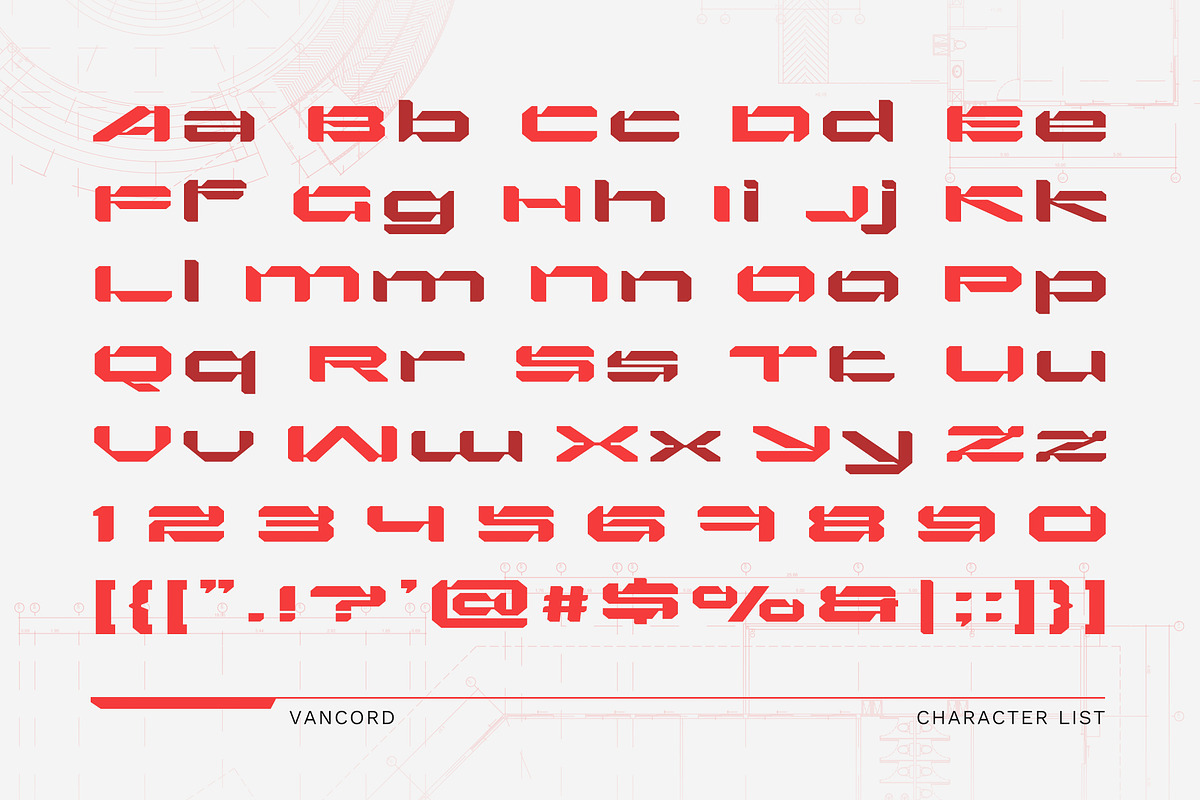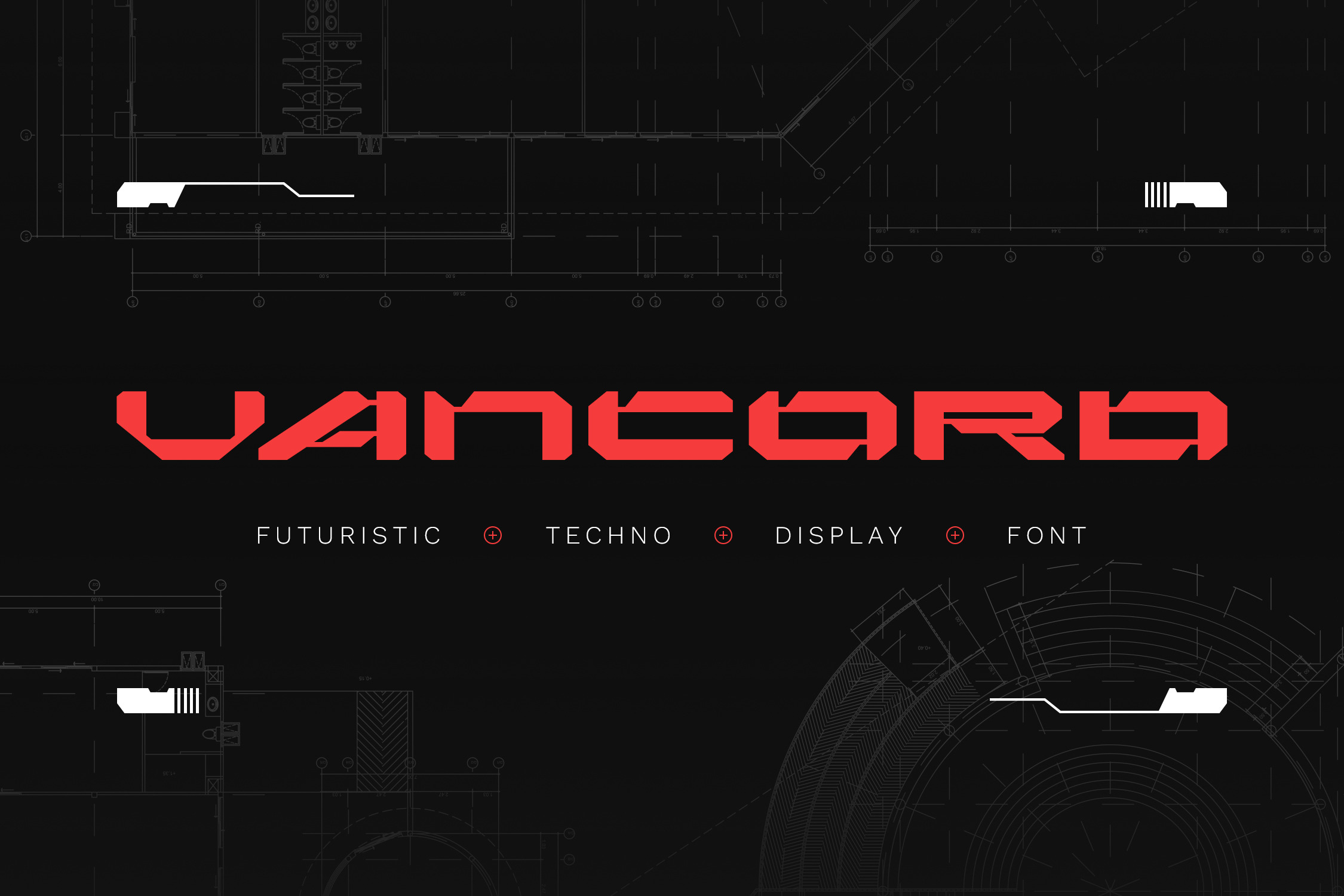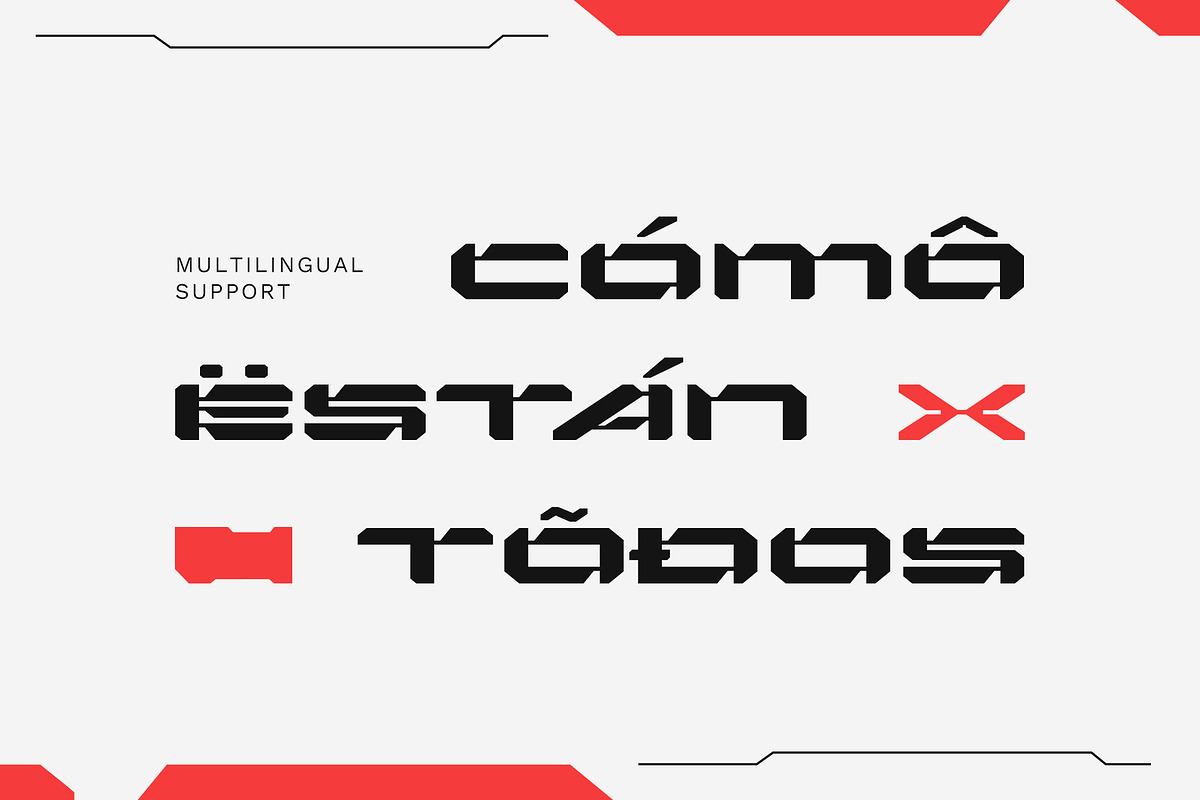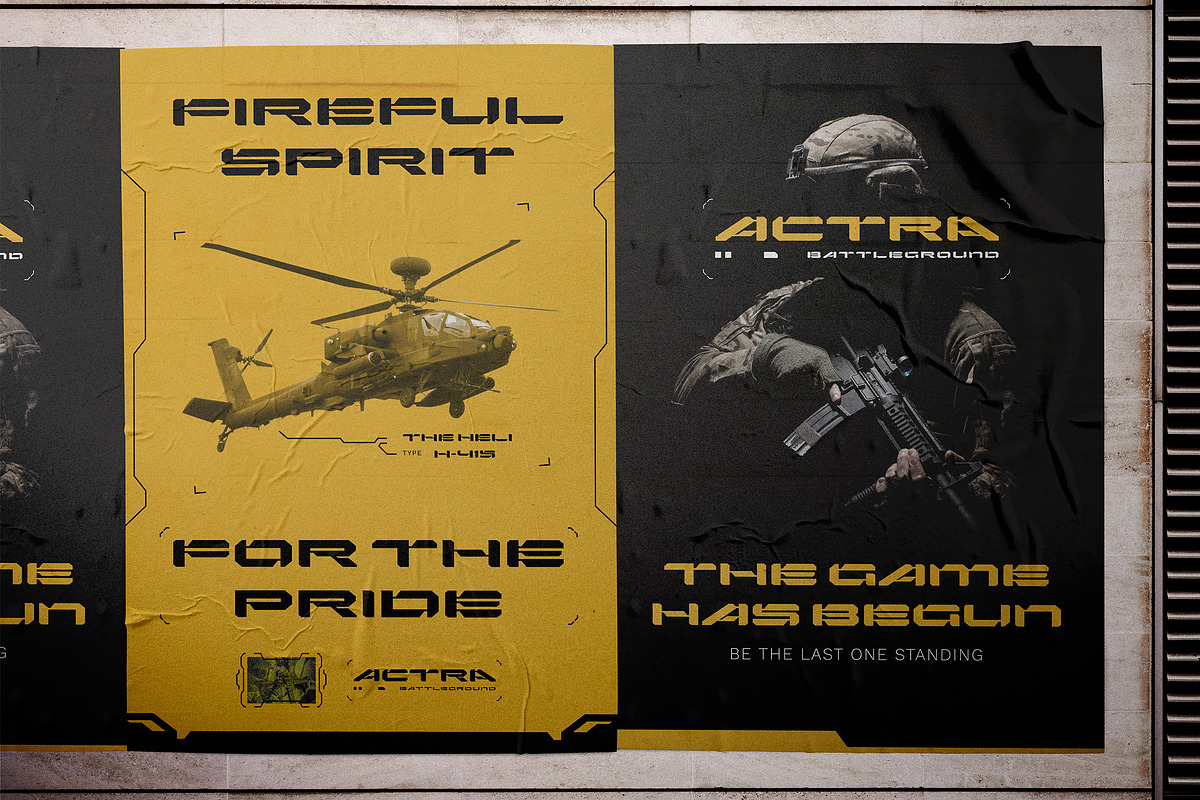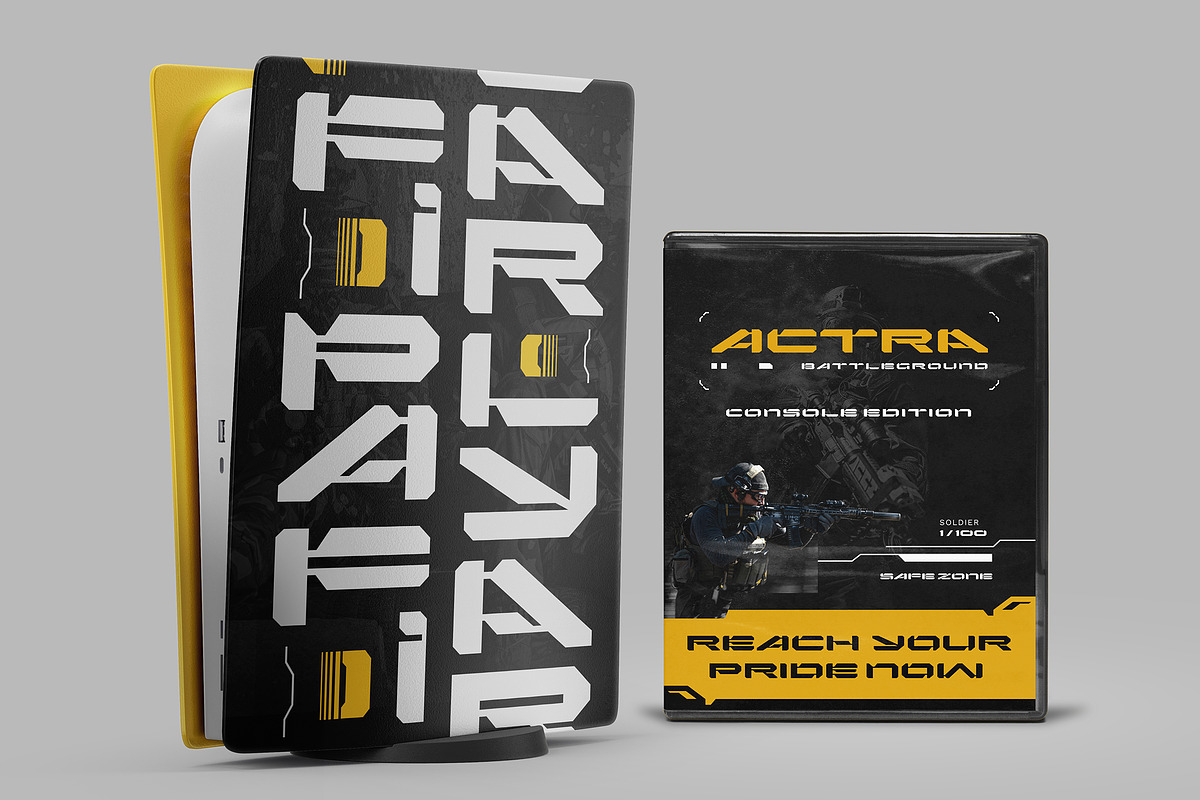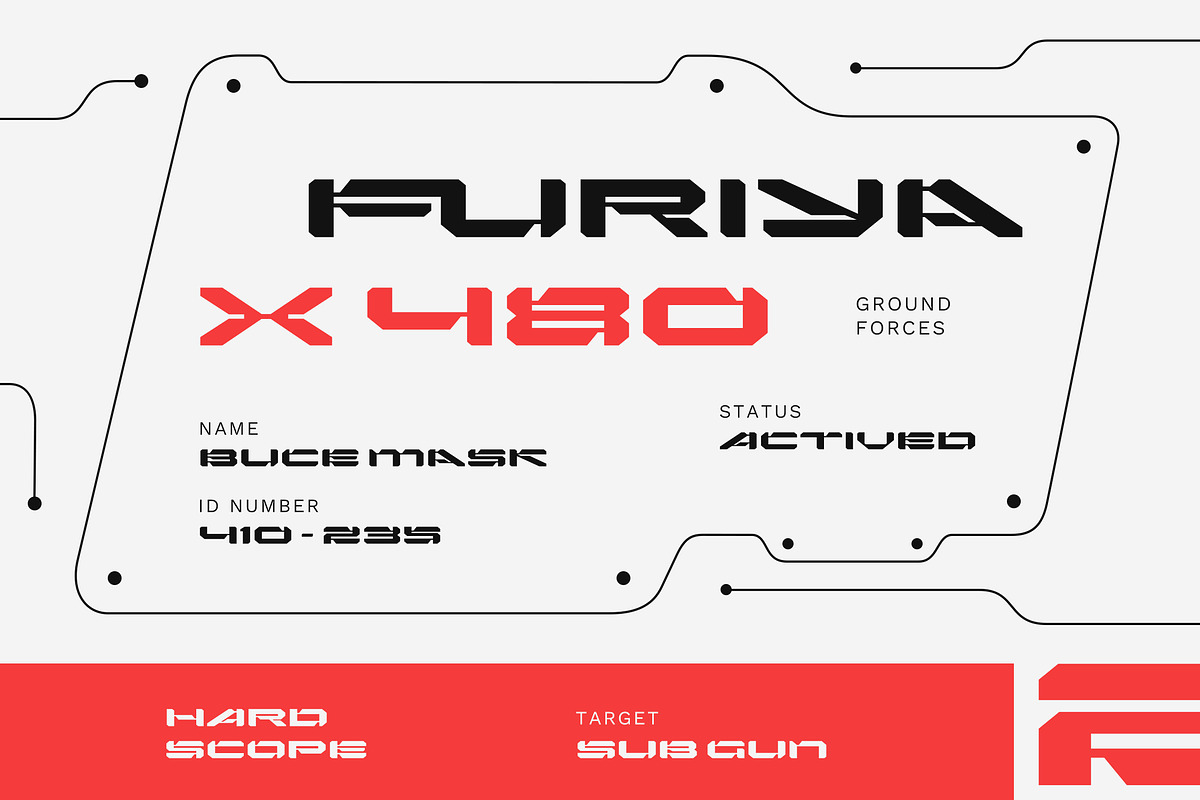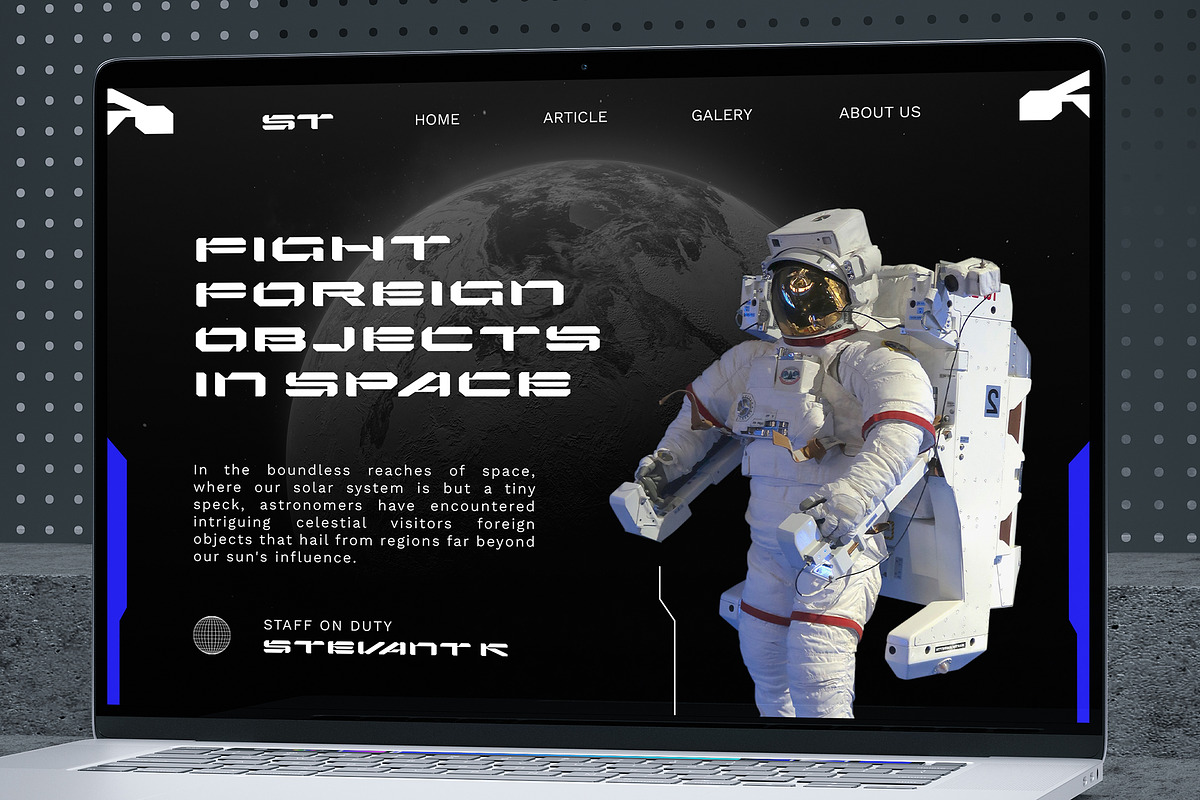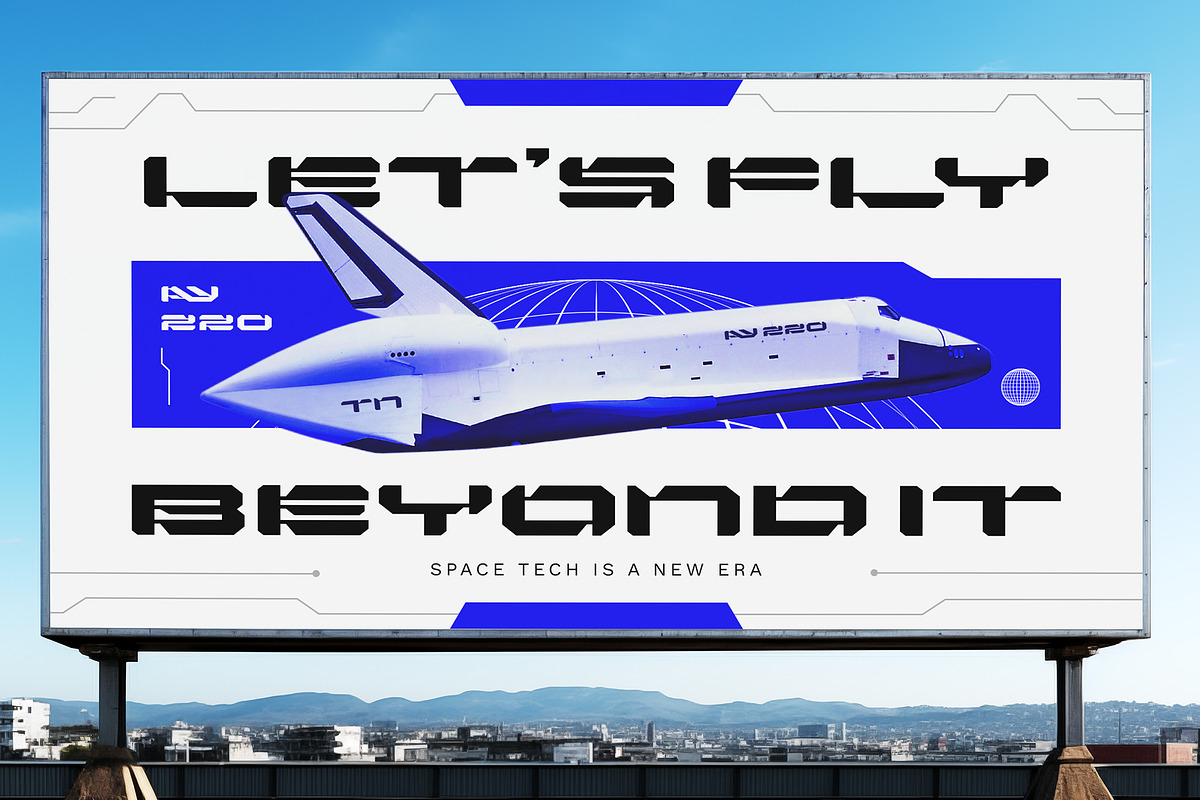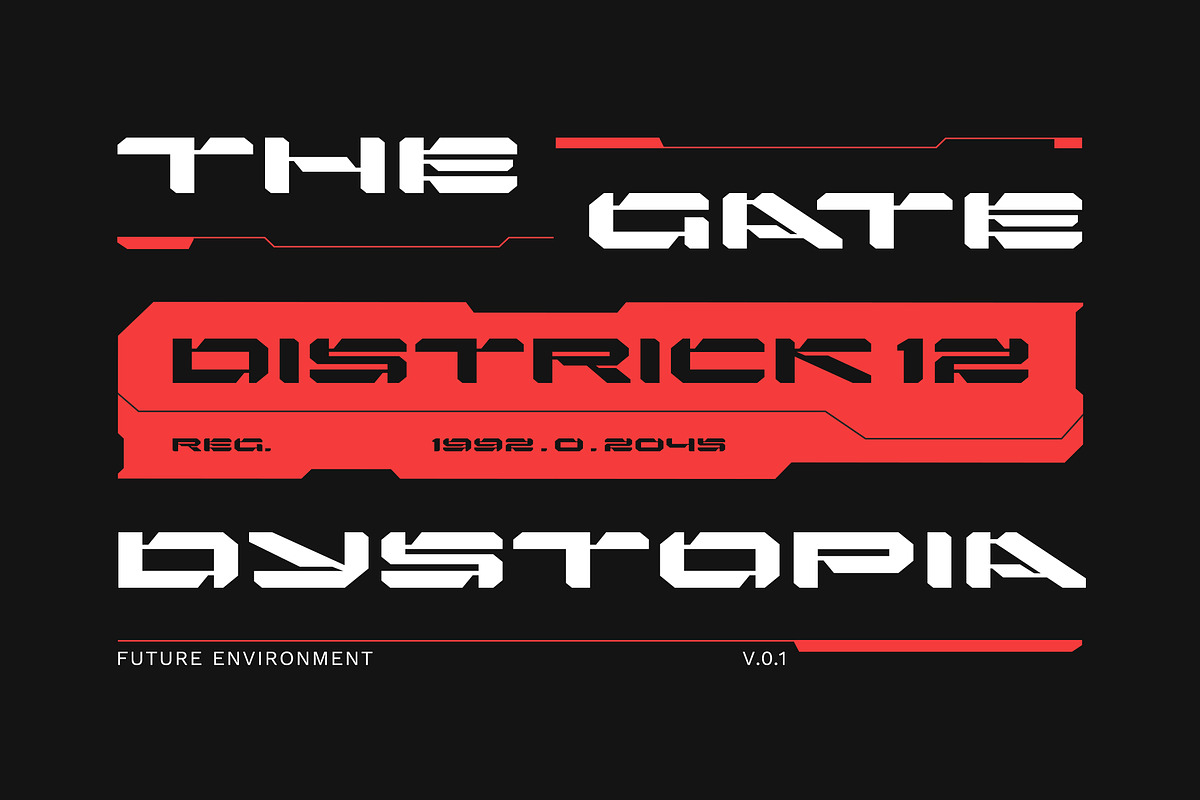
Vancord - Futuristic Display Font
Vancord - Futuristic Techno Display font - Cutting-Edge Design for a Digital Era
Vancord is a futuristic techno display font that embodies the essence of modernity and innovation. Tailored for futuristic and tech-centric designs, Vancord is well-suited for Technology branding, App and Software Interfaces, Gaming Graphics, Product Packaging, you can use the font on product packaging for tech gadgets, electronics, or other futuristic products. You can also apply vancord for Digital and Print Advertisements, Event Promotions, Science and Innovation Reports, Web Design and Book and Magazine Covers, Apply the font to book or magazine covers for topics like science fiction, futuristic concepts, or technology trends.